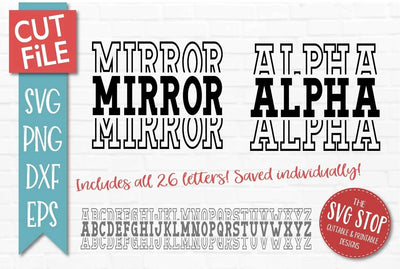
Mirror Alphabet Font SVG | Stacked Mirror Letters | Monogram Cut File Bundle | Cricut Silhouette Ready
Create custom monograms and stacked designs with this mirror alphabet font SVG bundle. Perfect for t-shirts, tumblers, wood signs, and personalized gifts your customers will treasure. This full alphabet set comes in SVG, PNG, DXF, and EPS formats for clean cuts on all major cutting machines.